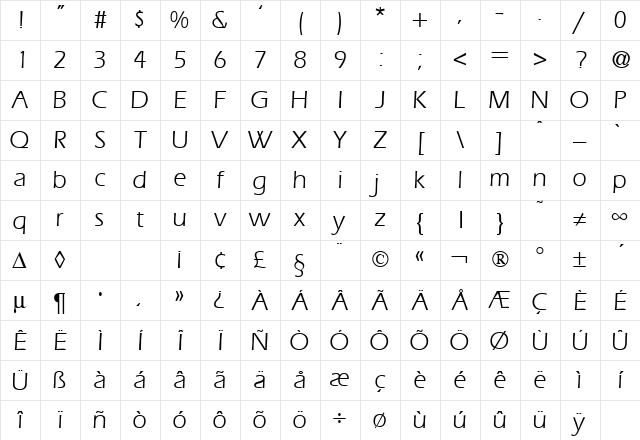
Ergo DB Regular
Complete Ergo DB Regular glyph index. Displaying only characters natively supported by Ergo DB Regular font.
Design Context for Ergo DB
Ergo DB is a composed and adaptable typeface that performs quietly and consistently across a wide range of design contexts.